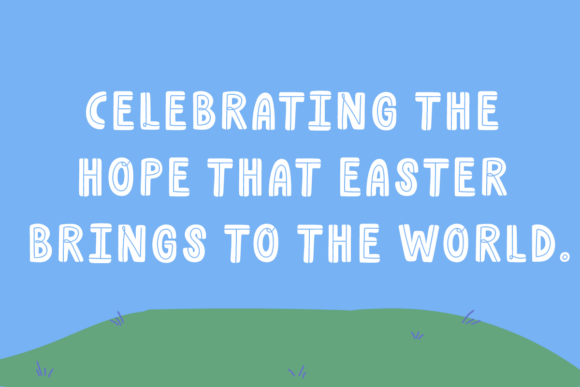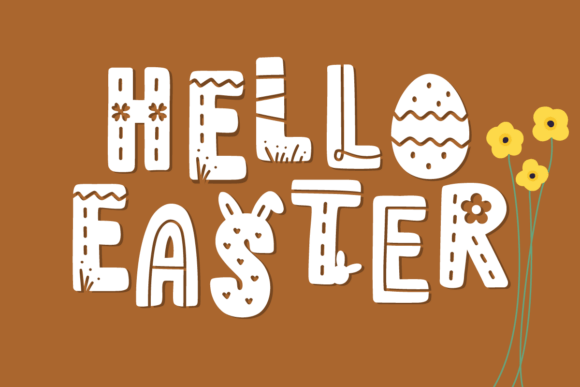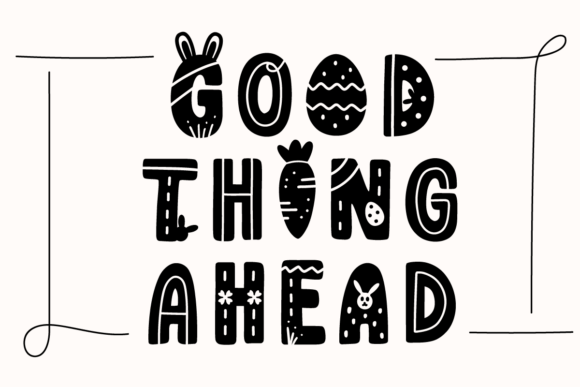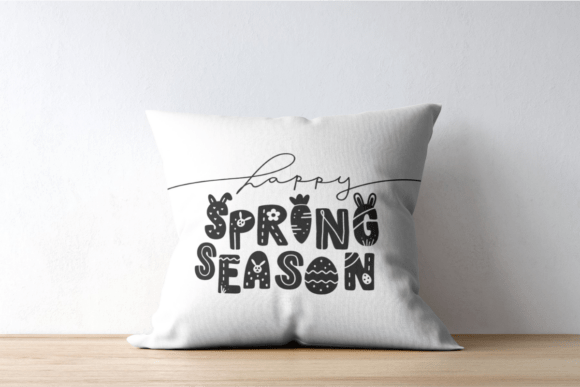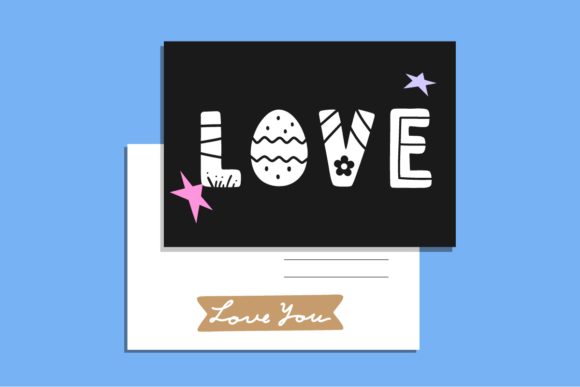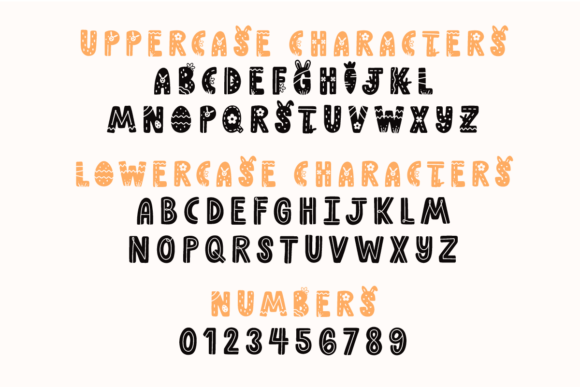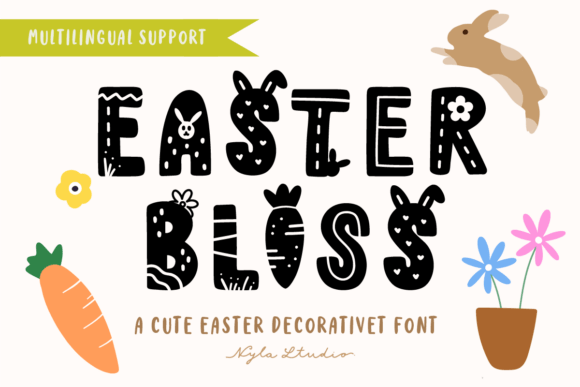
Easter Bliss Font: The Perfect Addition to Your Easter Designs
Are you looking for a playful and festive font to make your Easter designs stand out? Look no further than the Easter Bliss Font! This delightful font is specifically designed for Easter-themed projects, and its playful charm is sure to bring a smile to anyone’s face.
What is Easter Bliss Font?
Easter Bliss is a decorative font that is perfect for creating a wide range of Easter-themed designs, from invitations and greeting cards to stickers, mugs, and more. Its playful and whimsical style is sure to add a touch of Easter magic to any project.
Easter Bliss Font Features
The Easter Bliss Font comes with a range of features that make it the perfect choice for designers and crafters. Some of its key features include:
- Extended punctuation: The Easter Bliss Font includes a wide range of punctuation marks, making it easy to create professional-looking text.
- Multilingual Characters support: The font supports multiple languages, making it a great choice for designers who work with international clients or want to create designs in different languages.
What Can I Use Easter Bliss Font For?
The Easter Bliss Font is incredibly versatile and can be used for a wide range of projects, including:
- Easter projects: Create festive Easter designs, such as Easter eggs, bunnies, and spring-themed artwork.
- Shirts and apparel: Add a playful touch to your Easter-themed shirts, hoodies, and other apparel.
- Easter designs: Create stunning Easter designs for social media, blogs, and websites.
- Invitation cards: Design beautiful and festive Easter invitation cards for parties, events, and gatherings.
- Mugs and ceramics: Add a personal touch to your Easter-themed mugs, plates, and other ceramics.
- Stickers and decals: Create fun and playful Easter stickers and decals for kids and adults alike.
- Playful quotes: Design inspiring and playful quotes for social media, blogs, and websites.
- Posters and flyers: Create eye-catching Easter posters and flyers for events, promotions, and sales.
- Logos and branding: Use the Easter Bliss Font to create unique and memorable logos and branding materials.
- Greeting cards: Design beautiful and festive Easter greeting cards for friends and family.
- Packaging and labels: Add a personal touch to your Easter-themed packaging and labels.
- Illustrations and artwork: Use the Easter Bliss Font to decorate your Easter-themed illustrations and artwork.
Why Choose Easter Bliss Font?
There are many reasons why the Easter Bliss Font is the perfect choice for your Easter designs. Here are just a few:
- Unique and playful style: The Easter Bliss Font has a unique and playful style that’s sure to stand out from the crowd.
- Easily readable: Despite its playful style, the Easter Bliss Font is easily readable, making it perfect for designs where text needs to be clear and concise.
- Multilingual support: The font supports multiple languages, making it a great choice for designers who work with international clients.
If you’re looking for a playful and festive font for your Easter designs, look no further than the Easter Bliss Font. With its unique and playful style, extended punctuation, and multilingual character support, this font is perfect for a wide range of Easter-themed projects. Whether you’re a designer, crafter, or DIY enthusiast, the Easter Bliss Font is sure to bring a touch of Easter magic to your designs.